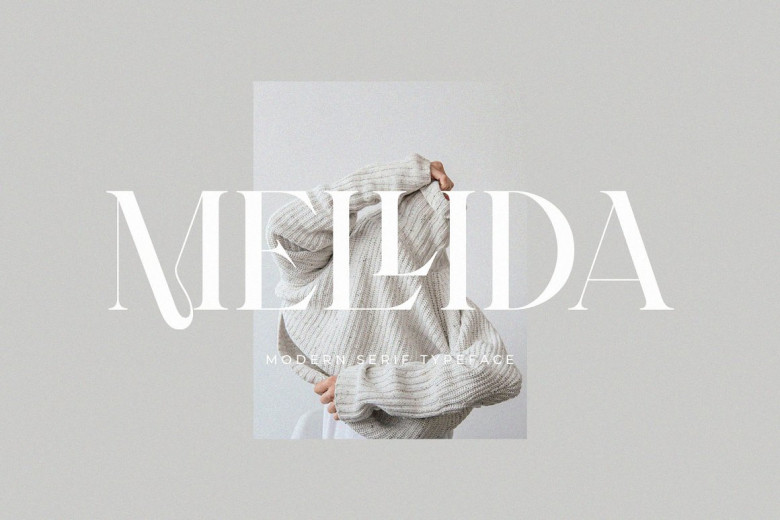
Mellida Font
Mellida, a modern yet elegant typeface, can be found used widely across magazines, product packaging, invitations and logos. With its clean lines and soft curvatures, Mellida adds an air of sophistication and classiness.
Mellida Serif Font